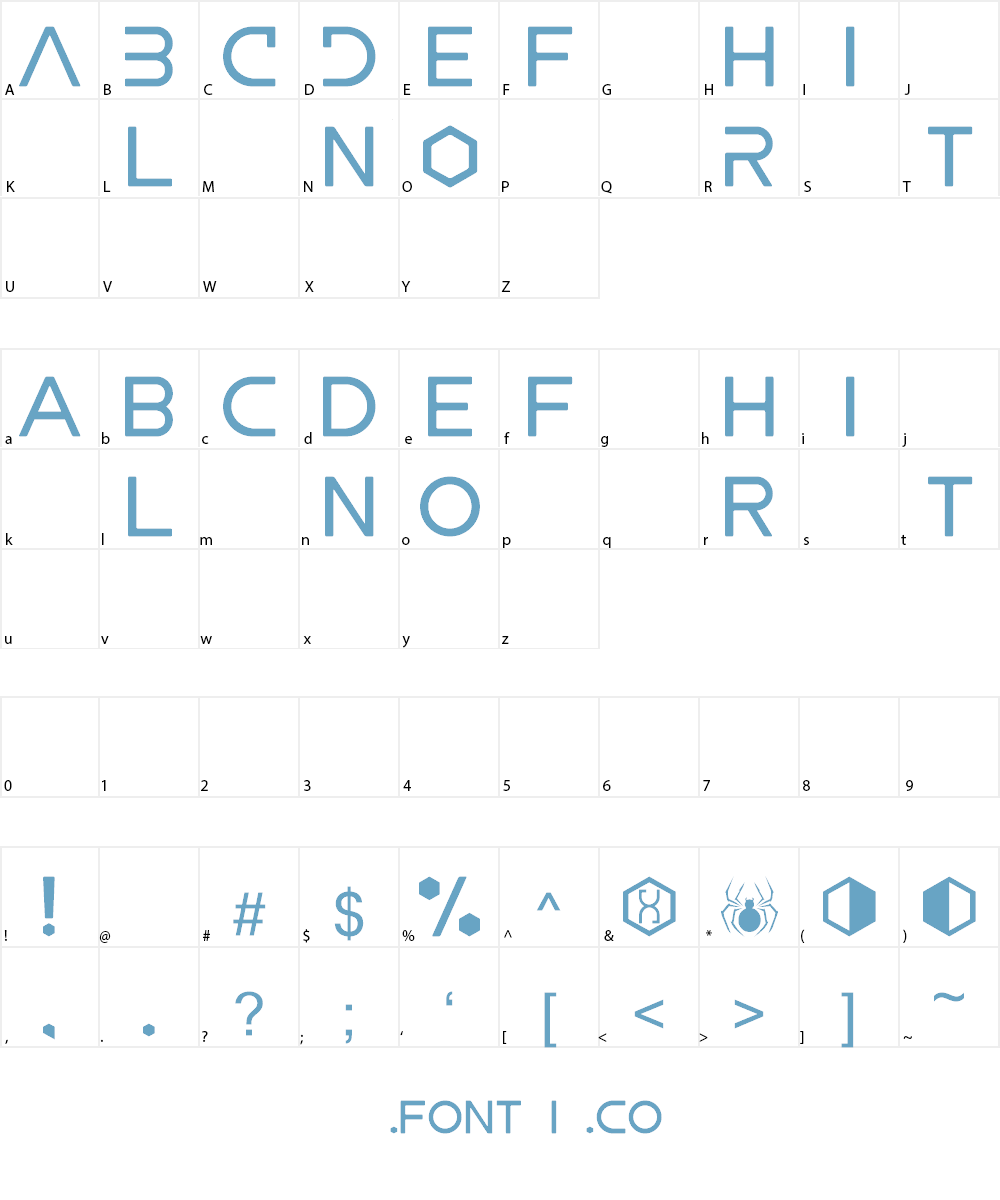
I created this fan-font based on the on the new dystopian Science Fiction movie where if you have enough money you can live forever, backed up into your hexagonal stack and cast into which ever body you choose. The font has similar broken vertical stems, rounded corners and hexagonal angled glyphs.